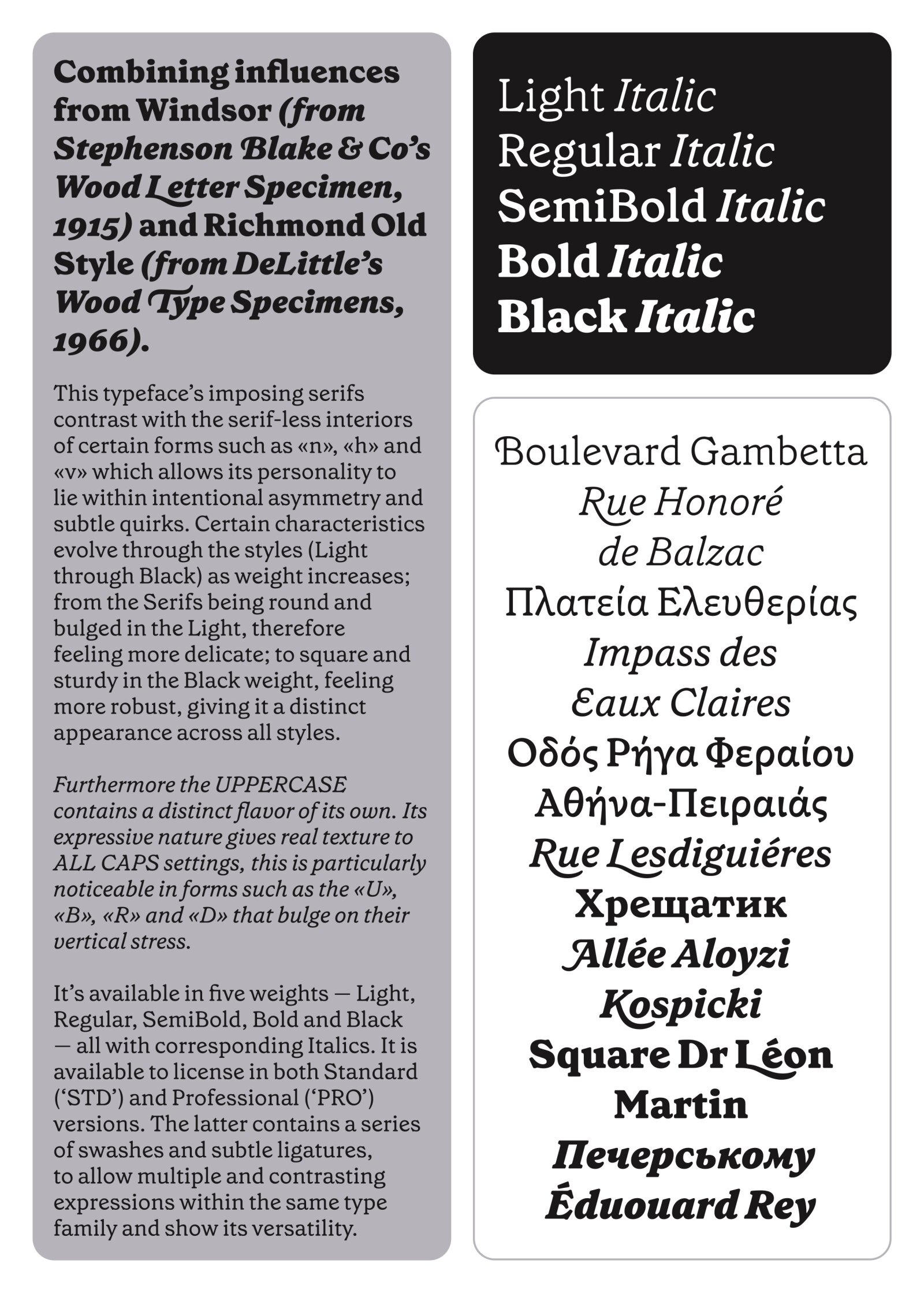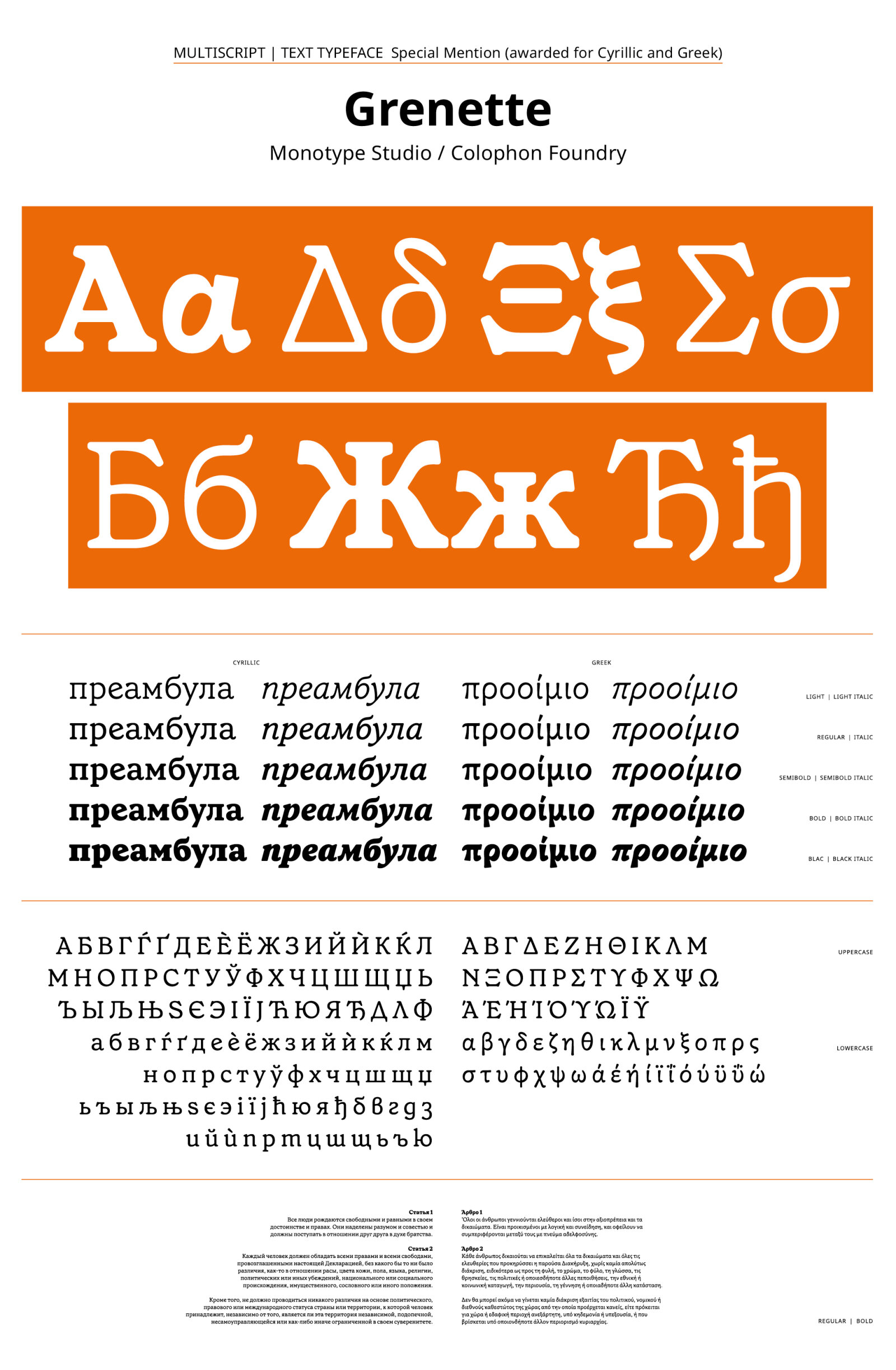
Grenette
by Monotype Studio, Colophon Foundry
A quality typeface, at first glance it looks quite ordinary (which is not always bad for a text font), but it actually contains many different swash glyphs and other variants that give it a recognizable and unusual feature.
The jury awarded the prize for Cyrillic and Greek.
Combining influences from Windsor (from Stephenson Blake & Co’s Wood Letter Specimen, 1915) and Richmond Old Style (from DeLittle’s Wood Type Specimens, 1966). This typeface’s imposing serifs contrast with the serif-less interiors of certain forms such as «n», «h» and «v» which allows its personality to lie within intentional asymmetry and subtle quirks. Certain characteristics evolve through the styles (Light through Black) as weight increases; from the Serifs being round and bulged in the Light, therefore feeling more delicate; to square and sturdy in the Black weight, feeling more robust, giving it a distinct appearance across all styles.